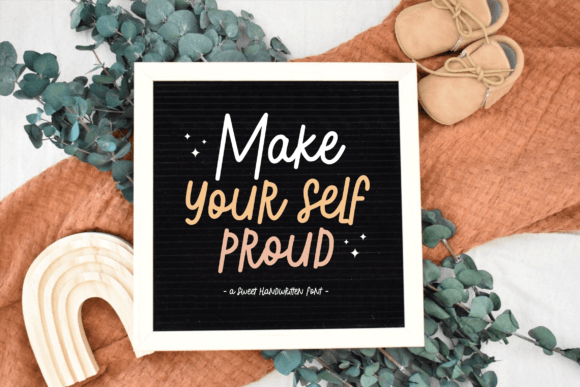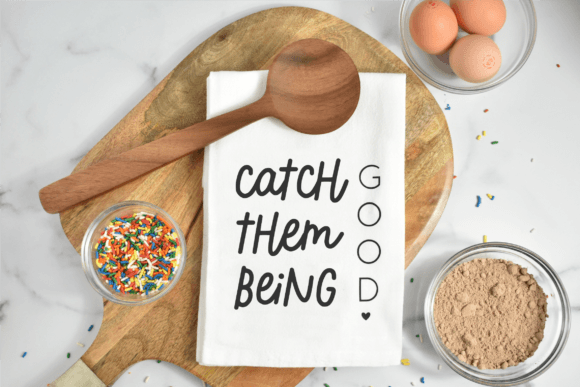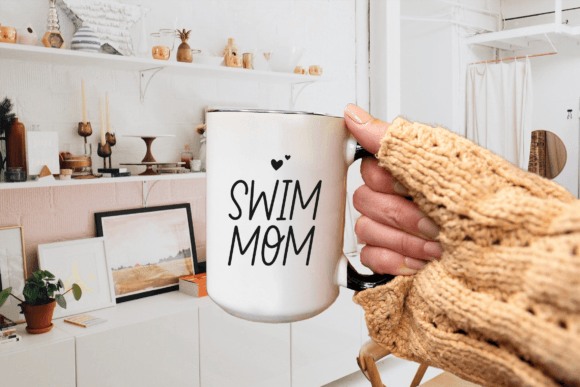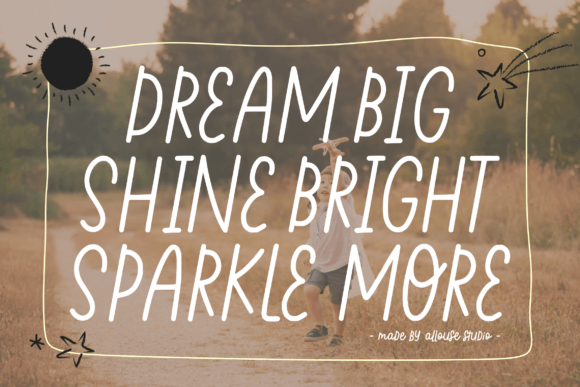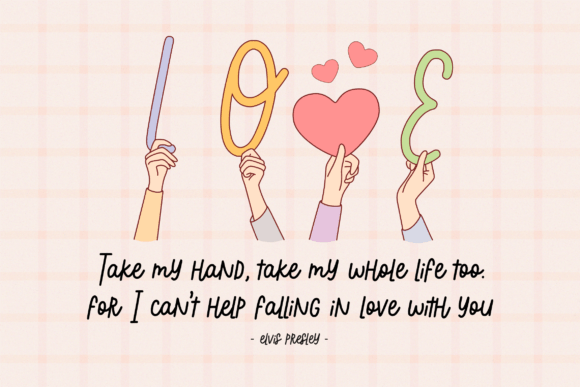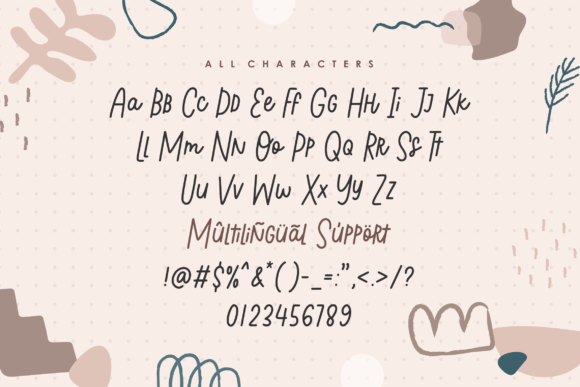
Andra Cookie Font: A Sweet Handwritten Delight for Designers and Crafters
Are you on the hunt for a font that’s as sweet as it is versatile? Look no further than Andra Cookie, a charming handwritten font that’s perfect for a variety of design projects. From product packaging to branding, magazines, social media, weddings, and beyond, Andra Cookie is the perfect addition to your typographic toolkit.
What is Andra Cookie Font?
Andra Cookie is a beautiful, hand-crafted font that’s designed to add a touch of warmth and personality to your designs. With its smooth, flowing lines and playful curves, this font is sure to capture the hearts of designers and crafters alike. Whether you’re looking to create a whimsical brand identity or add a dash of sweetness to your packaging, Andra Cookie is the perfect choice.
Key Features of Andra Cookie Font
- Handwritten style: Andra Cookie is a genuine handwritten font, crafted with love and care to give your designs a personal touch.
- Versatile: This font is perfect for a wide range of design projects, from product packaging to branding, magazines, social media, and more.
- Easy to read: Despite its playful nature, Andra Cookie is incredibly legible, making it perfect for use in both digital and print designs.
- Unique character set: Andra Cookie comes with a range of unique characters, including ligatures, alternates, and ornaments, to help you add personality to your designs.
Uses for Andra Cookie Font
So, what can you use Andra Cookie for? The possibilities are endless! Here are just a few ideas to get you started:
- Product packaging: Add a touch of sweetness to your product packaging with Andra Cookie. Perfect for food, cosmetics, or craft products.
- Branding projects: Create a unique and memorable brand identity with Andra Cookie. Use it for logos, business cards, or letterheads.
- Magazines and blogs: Add a dash of personality to your magazine or blog with Andra Cookie. Perfect for headings, titles, or quotes.
- Social media: Use Andra Cookie to create eye-catching social media graphics, posts, or stories.
- Weddings and events: Add a touch of romance and whimsy to your wedding or event designs with Andra Cookie. Perfect for invitations, programs, or signage.
Tips for Using Andra Cookie Font
Here are a few tips to help you get the most out of Andra Cookie:
- Experiment with sizes: Andra Cookie looks great in a range of sizes, from large headings to smaller body text.
- Play with colors: Andra Cookie is perfect for use with a range of colors, from bright and bold to soft and pastel.
- Mix and match: Try pairing Andra Cookie with other fonts to create a unique and interesting typographic combination.